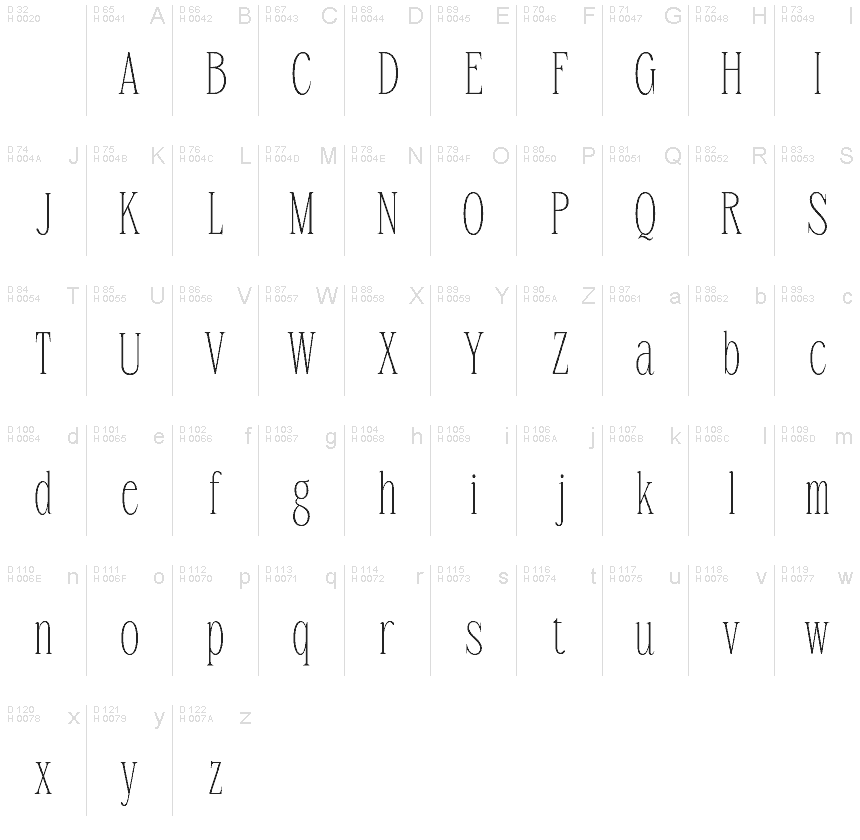
CS Leona Demo Regular
CS Leona font, by Craft Supply Co., is a condensed free serif font with an elegant, sophisticated style. Its light weight and classic appearance give it both a refined and modern touch, resulting in a high-end appeal that delights any viewer. Additionally, the beautiful curves of its letters create a strong visual impact whenever you use them.
From tags to branding projects, advertisements to logotypes; websites to packaging designs; labels to book covers, business cards to social media posts: you’ll find plenty of projects where CS Leona will shine!